Whether you’re crafting a poster for a rock concert or designing a vintage band T-shirt, the right font can set the stage and speak volumes. In this article, we’ve rounded up 15 Canva fonts that scream classic rock and roll, perfect for giving your creations that edgy, timeless look. From bold and rebellious to rough and rustic, these fonts channel the spirit of rock legends and the raw energy of gritty garage bands. Each font has been carefully selected to help you convey the essence of rock and roll in every design.
1. Barbra
Why it is a classic rock and roll font: Barbra is a bold and whimsical font with rounded edges and a slightly retro feel, reminiscent of 1960s rock and roll poster designs. Its playful yet strong appearance makes it ideal for headlines or logos that need a touch of vintage charm.
2. Bright Retro
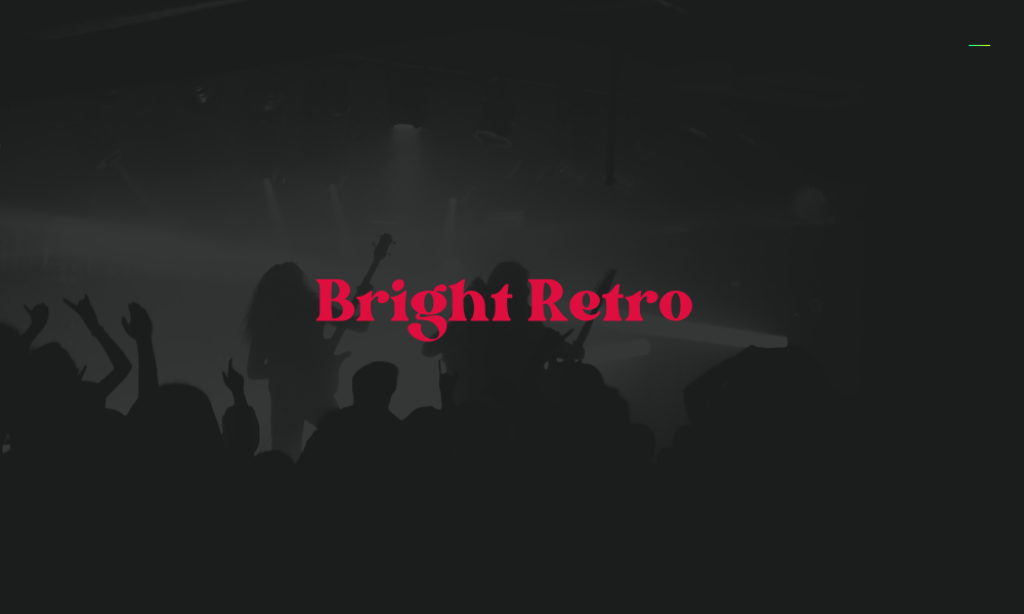
Why it is a classic rock and roll font: True to its name, Bright Retro offers a vibrant, groovy aesthetic that harks back to the psychedelic rock era. Its colorful, exaggerated letterforms are perfect for designs that aim to stand out and evoke nostalgia for the days of flower power and vinyl records.
3. Gliker
Why it is a classic rock and roll font: Gliker is a rough, textured font that has a raw, handcrafted look, much like the gritty aesthetics of early rock album covers. It’s great for adding a rugged, authentic vibe to any project, capturing the unpolished energy of rock music.
4. Hagrid Text
Why it is a classic rock and roll: This font is heavy and impactful, with a bold presence that demands attention. Its robust character makes it a good fit for anything from concert flyers to rock band logos, mimicking the strong, forceful nature of rock music.
5. Kooka
Why it is a classic rock and roll font: Kooka offers a whimsical twist with its quirky letter shapes and uneven lines, perfect for conveying a sense of fun and spontaneity reminiscent of rock’s eclectic side. Its distinctive style works well for creative projects that require a playful yet edgy font.
6. Laries Script
Why it is a classic rock and roll font: Laries Script features elegant swashes and a smooth flow that adds a touch of sophistication to any design. This script font can channel the more lyrical aspects of rock and roll, ideal for use in album covers or merchandise that requires a more refined typeface.
7. Limelight
Why it is a classic rock and roll font: Inspired by vintage cinema title screens, Limelight exudes a dramatic flair and grandeur. Its bold serifs and sharp contrasts capture the show-stopping elements of rock and roll performances, making it perfect for promotional materials or titles that need to make a big impact.
8. Margin
Why it is a classic rock and roll font: Margin is a modern sans-serif with clean lines and a versatile appearance. Its straightforward yet strong profile can be effectively used in more contemporary rock-themed designs, providing clarity and a modern twist to traditional rock aesthetics.
9. Mokoto Glitch 1
Why it is a classic rock and roll font: This font embodies the digital, glitchy aesthetics often seen in modern rock and electronic fusion genres. Its disrupted appearance makes it ideal for projects that aim to be edgy and experimental, reflecting the innovative spirit of rock music.
10. Monoton
Why it is a classic rock and roll font: Monoton is a chrome-like, single-weight display font that captures the glamour and glitz of rock music. Its continuous lines and optical effect make it suitable for logos, album art, and any project where a touch of metallic sheen is desired.
11. Nove
Why it is a classic rock and roll font: Nove offers a streamlined, geometric design with sharp corners and a clean finish, echoing the sleek visuals of rock from the 80s and 90s. It’s perfect for use in modern rock projects that require a neat yet bold typeface.
12. Oleo Script
Why it is a classic rock and roll font: With its flowing, connected character design, Oleo Script has a casual yet robust look. This script font provides a dynamic flow that mimics the rhythm and blues roots of rock and roll, ideal for evoking a sense of musical movement.
13. Tan Moonlight
Why it is a classic rock and roll font: Tan Moonlight is a delicate and slightly whimsical serif font with unique letterforms. Its subtle elegance is well-suited for softer rock genres or projects that blend poetic lyricism with rock aesthetics.
14. Tan Nimbus
Why it is a classic rock and roll font: Featuring thick, blocky letters, Tan Nimbus is reminiscent of classic rock and stencil art commonly used in band posters and album covers. Its strong, impactful style makes it a solid choice for any rock and roll-themed project needing a commanding presence.
15. Tan Twinkle
Why it is a classic rock and roll font: This font offers a fun and lively style with star-like embellishments that capture the vibrant, energetic side of rock music. Tan Twinkle is excellent for designs targeting younger audiences or for more festive rock and roll events.